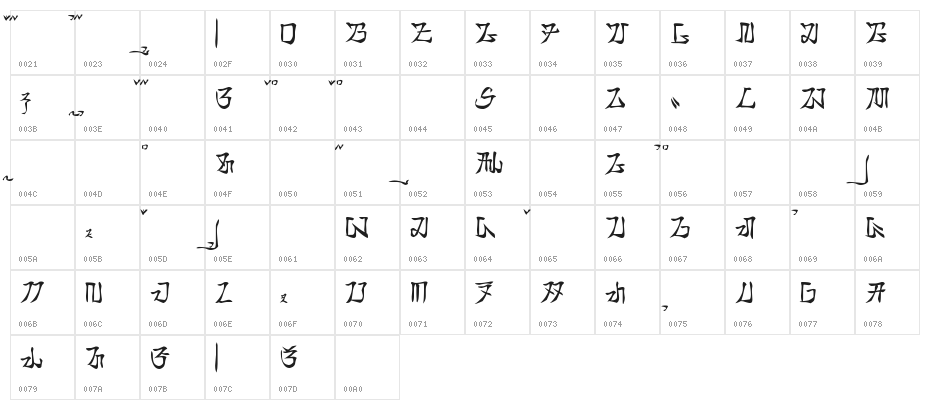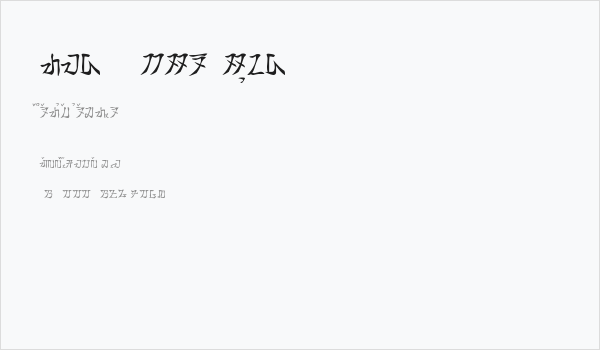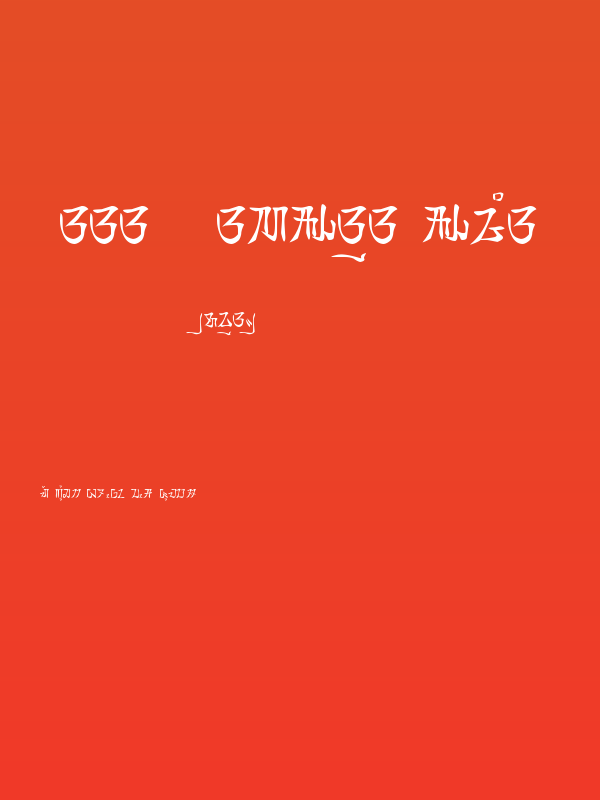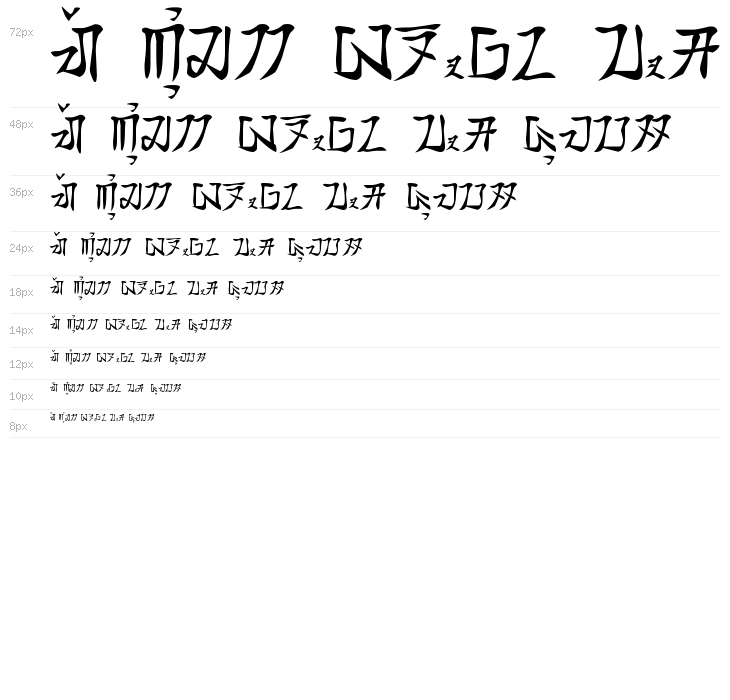
tamada - aksara sunda Font
tamada - aksara sunda Description
This script is a traditional writing system used for the Sundanese language, originating from the western part of Java, Indonesia. The characters are distinct with a flowing, calligraphic style that reflects the cultural heritage of the Sundanese people. Each letter is crafted with unique curves and angles, giving it an artistic and historical appearance. The script is not only functional but also decorative, often used in cultural artifacts and traditional documents. Its intricate design requires careful attention to detail, making it both a challenge and a delight for calligraphers and those interested in historical scripts.
| Overall Style | Traditional |
| Use Case | Cultural documents, artistic displays, educational materials. |
| Proposed Projects | Ideal for cultural projects, historical documentation, artistic calligraphy, and educational materials on Sundanese heritage. |